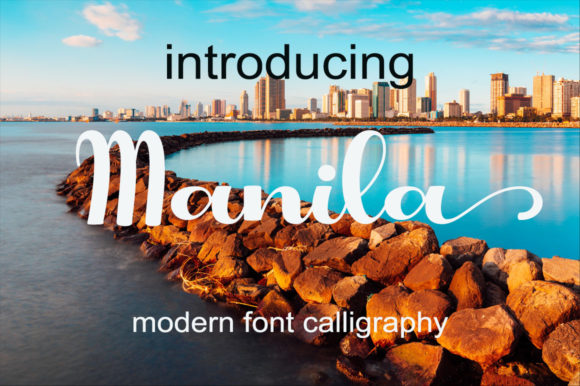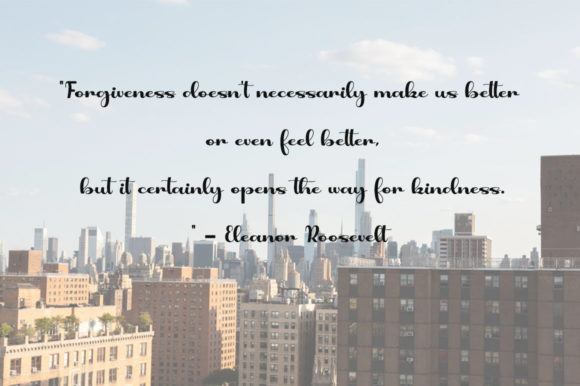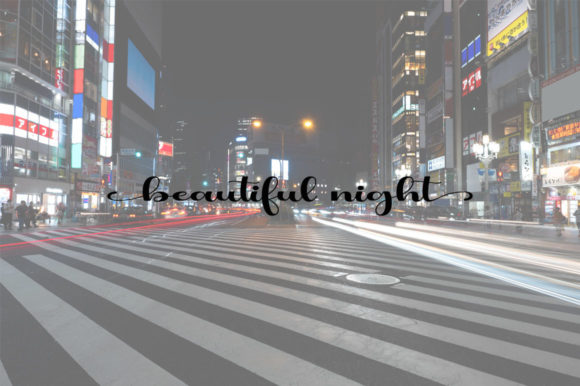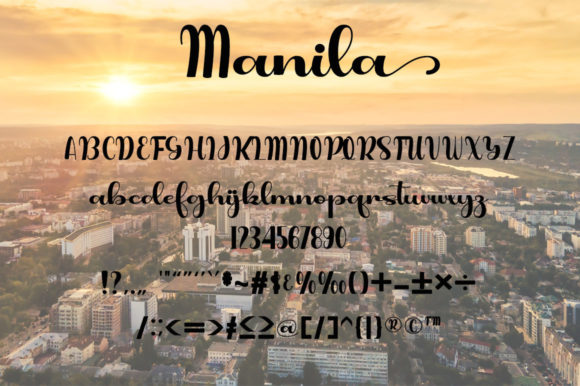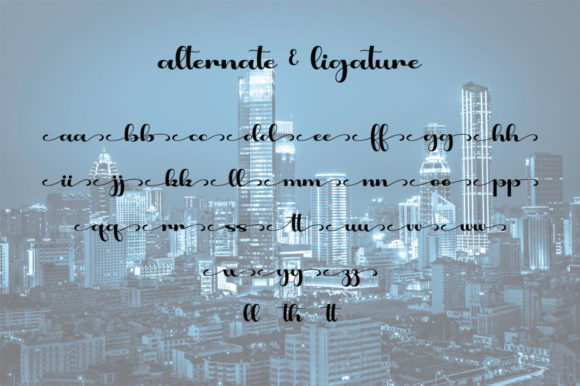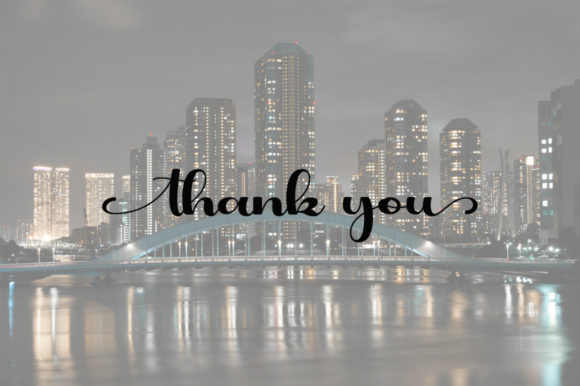
Manila Font
About Manila Font
Manila is an enchanting handwritten font. This versatile script font has a wide spectrum of applications ranging from greeting cards to headlines. Manila is PUA encoded which means you can access all of the glyphs and swashes with ease!